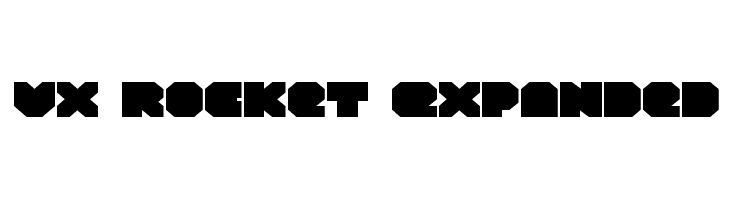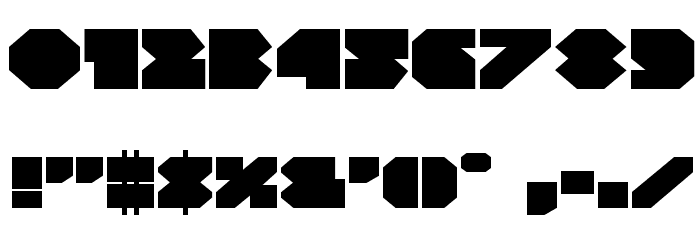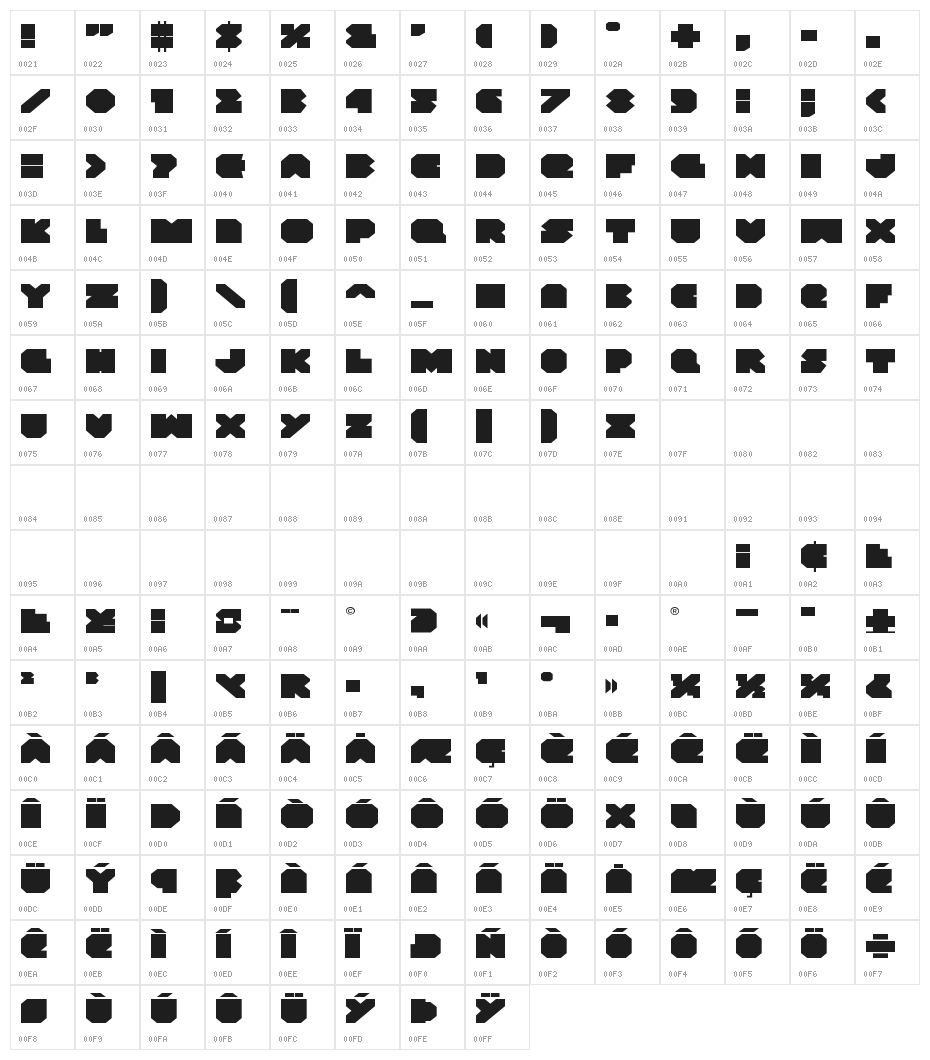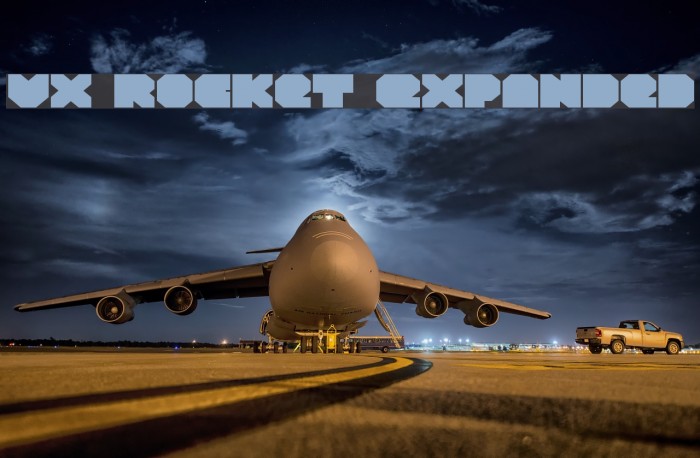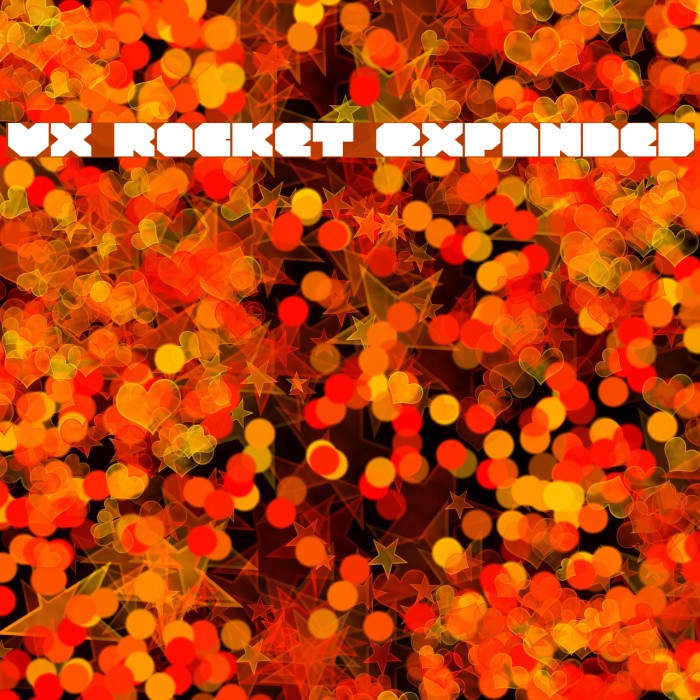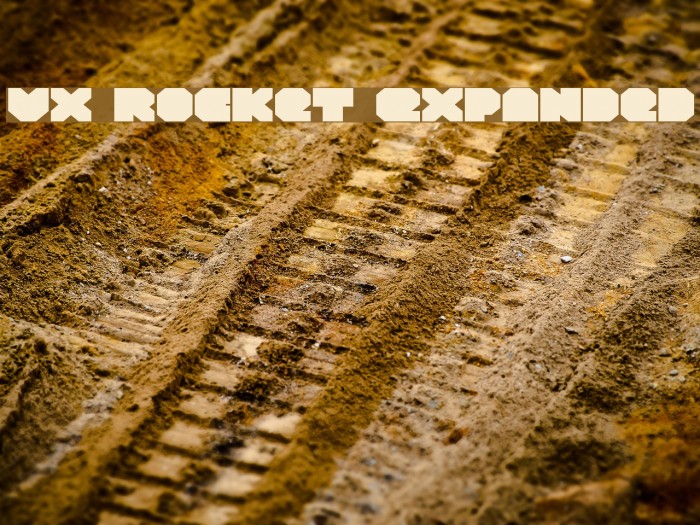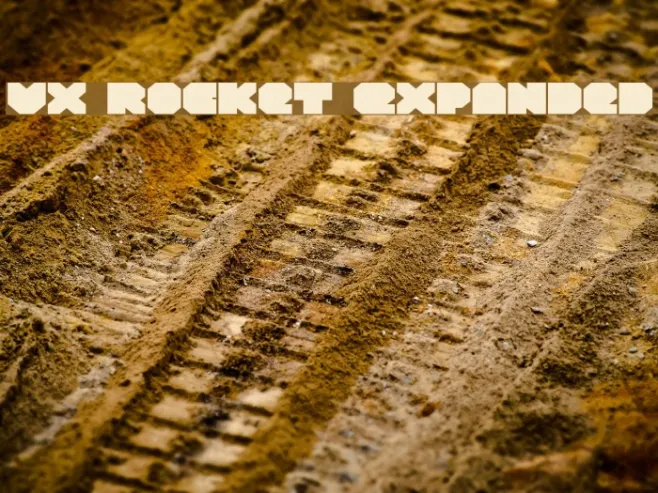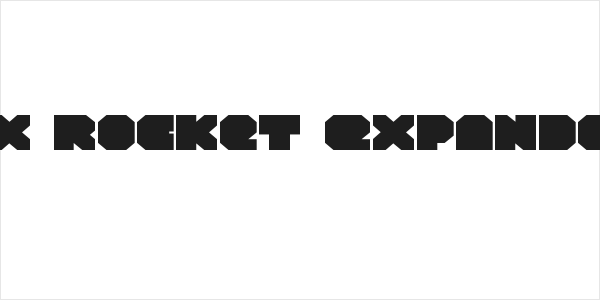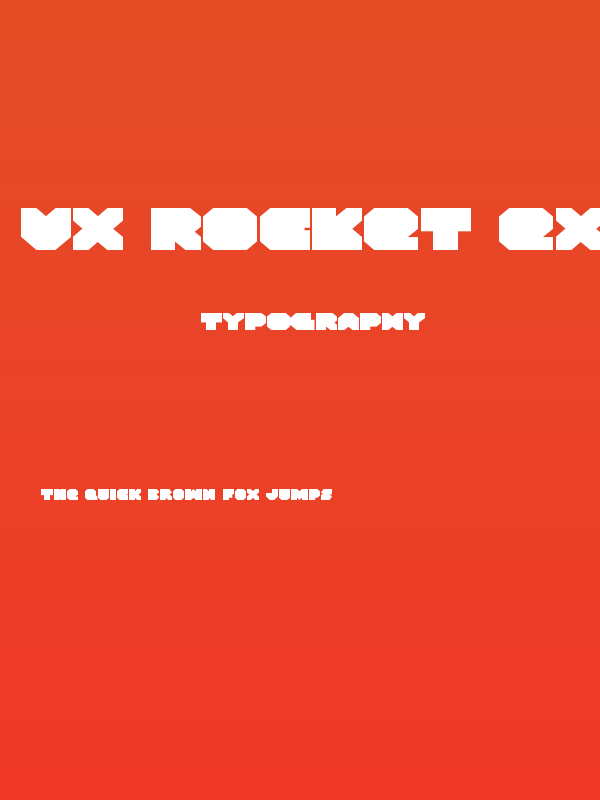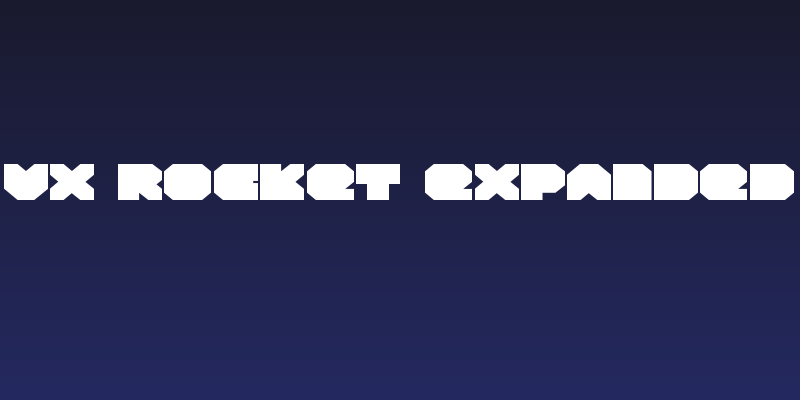
VX Rocket Expanded Font
VX Rocket Expanded Description
This font features a bold, geometric design with sharp angles and a futuristic aesthetic. Each character is constructed with a series of straight lines and angular cuts, creating a sense of movement and dynamism. The uppercase and lowercase letters maintain a consistent style, emphasizing uniformity and cohesion. The numbers and special characters follow the same design principles, ensuring a seamless visual experience across all glyphs. This font's unique style makes it ideal for projects that require a modern, edgy look.
| Overall Style | Futuristic, Modern |
| Proposed Projects | Ideal for sci-fi themed posters, video game titles, branding for tech companies, and futuristic event invitations. |